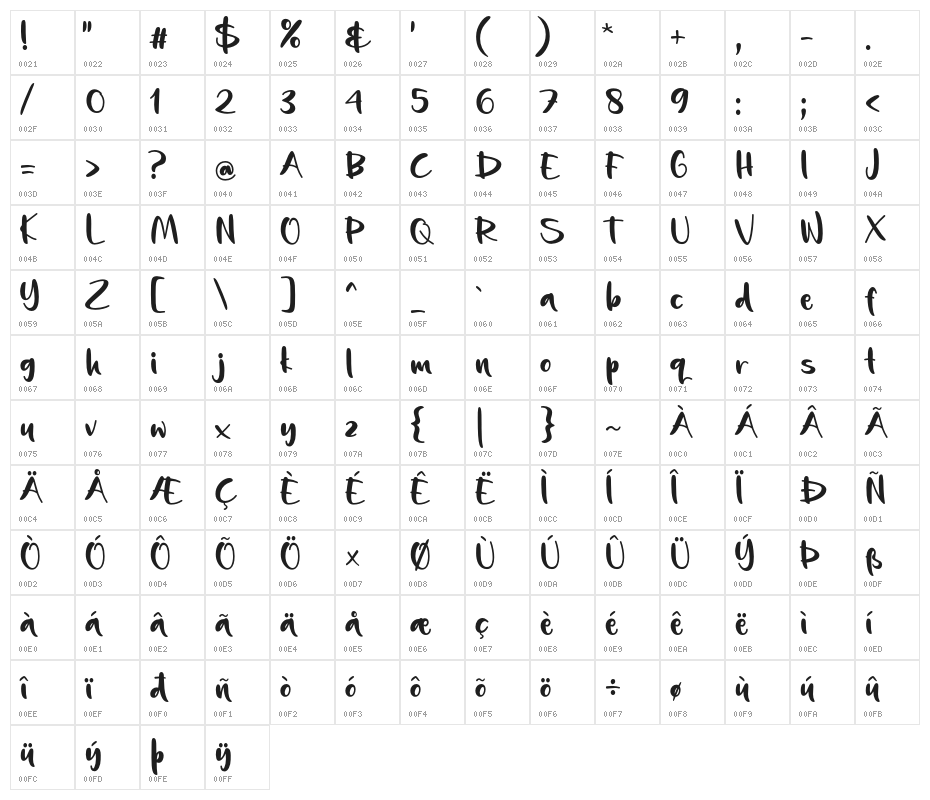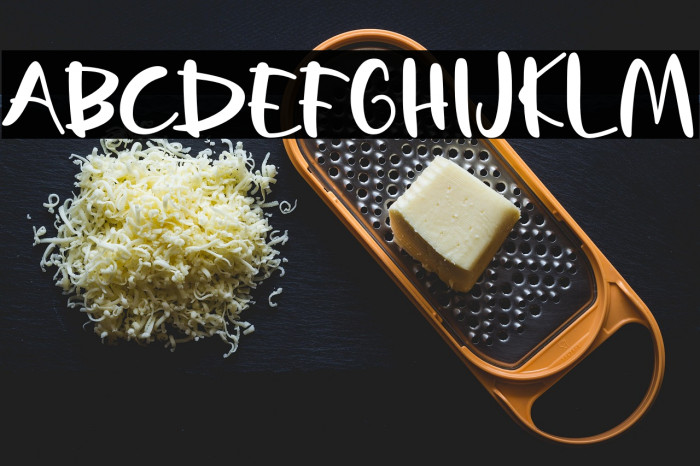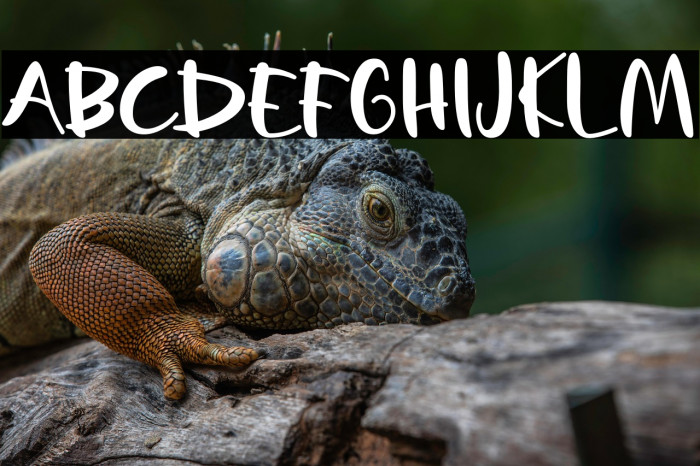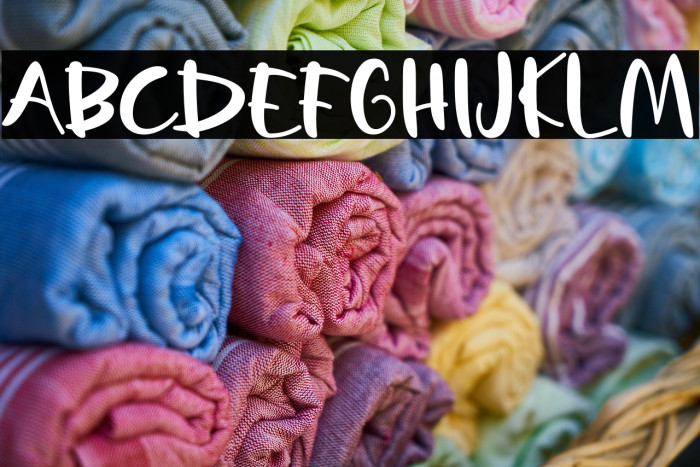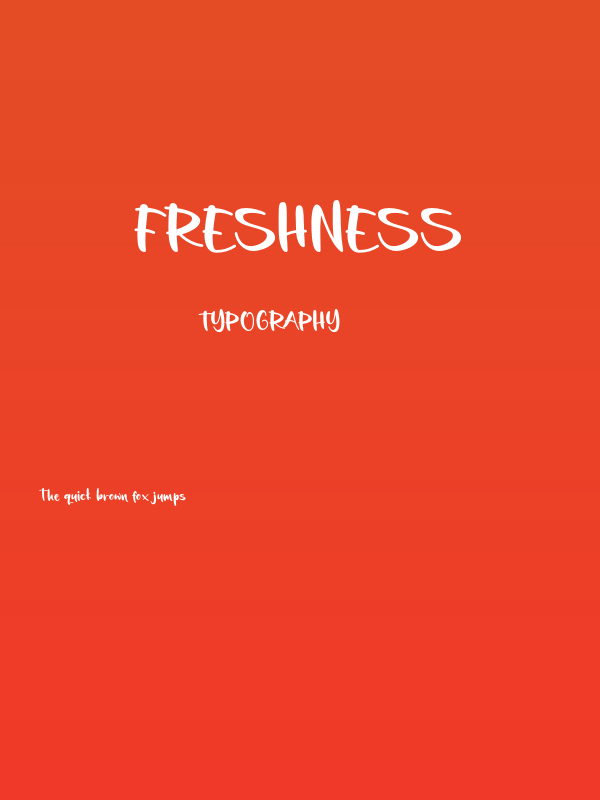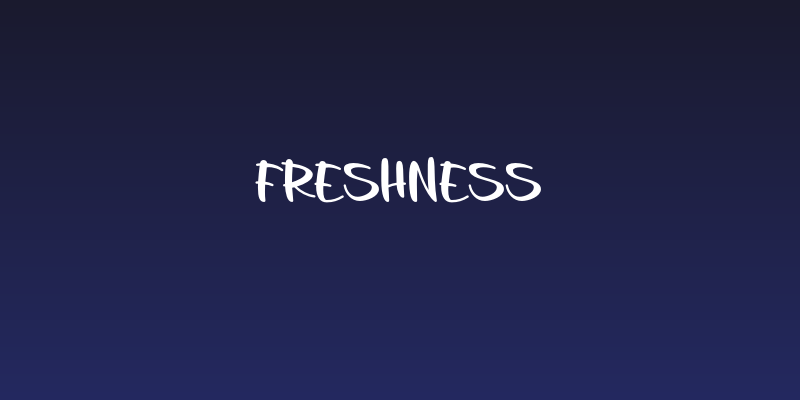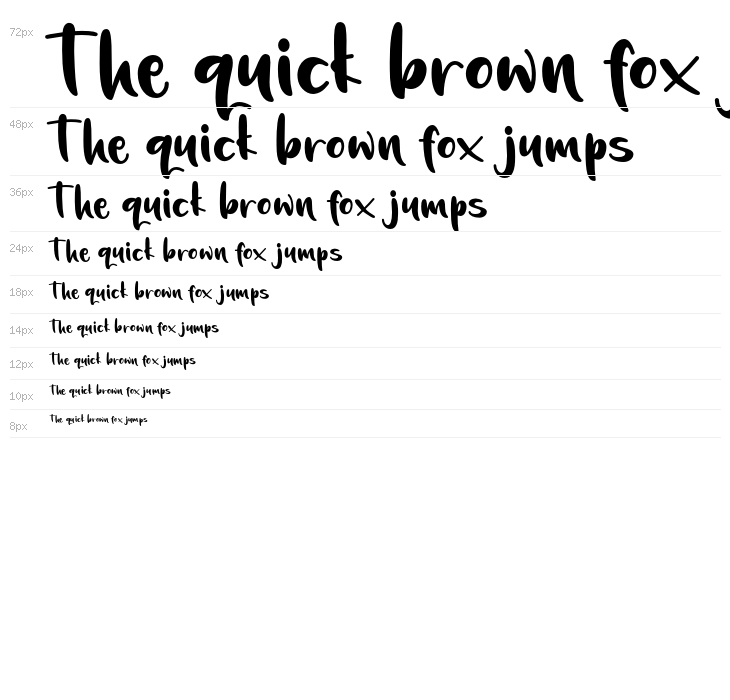
Freshness Font
Freshness Description
This font exudes a lively and energetic vibe with its bold, handwritten style. The characters are crafted with a playful flair, featuring smooth curves and a slightly irregular baseline that adds to its charm. The uppercase letters are bold and assertive, while the lowercase letters maintain a friendly and approachable feel. The numerals are consistent with the overall style, ensuring readability while retaining the font's unique character. Special characters are creatively designed, adding a touch of whimsy. This font is perfect for projects that require a personal touch, such as invitations, posters, or branding materials.